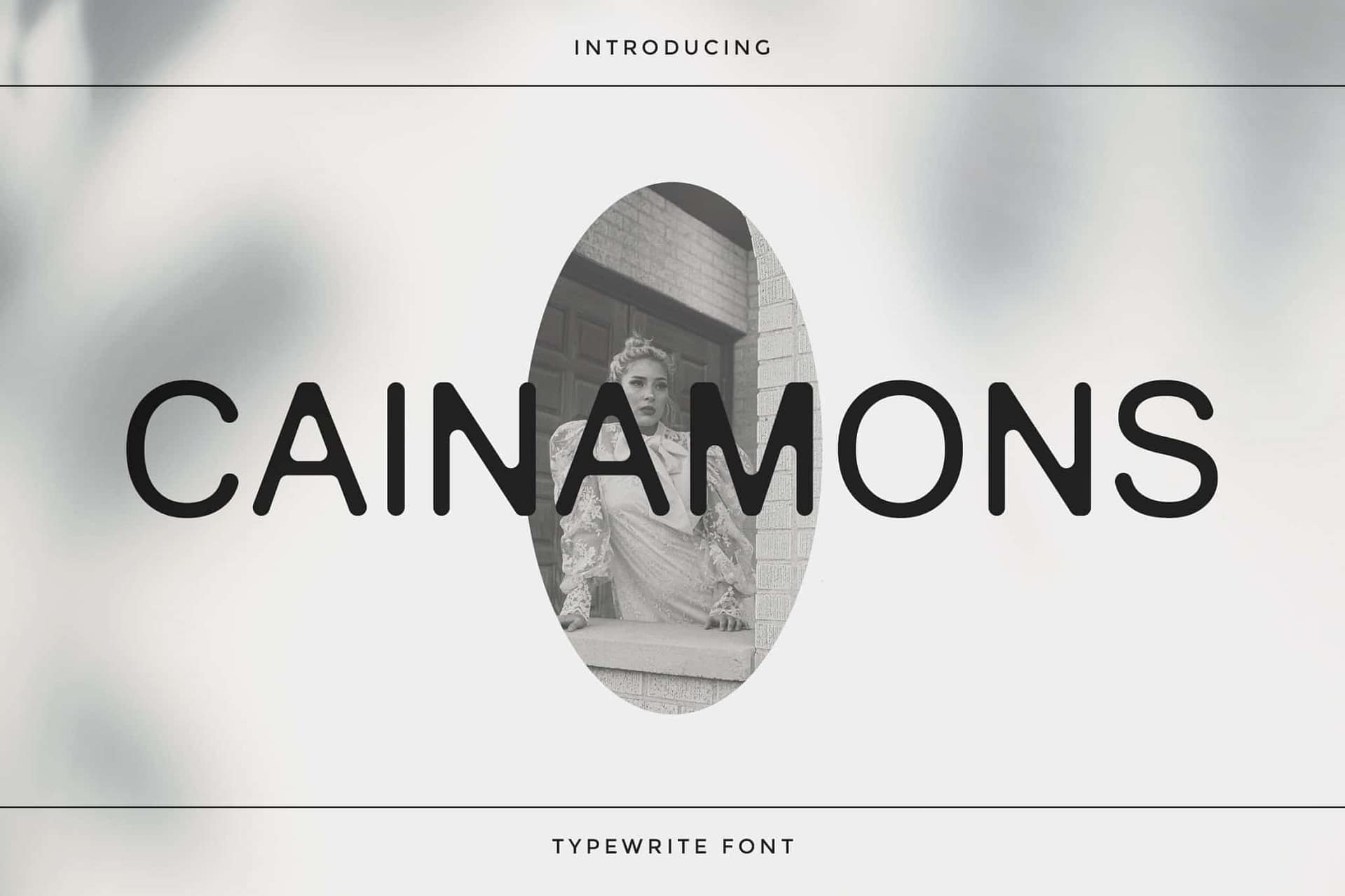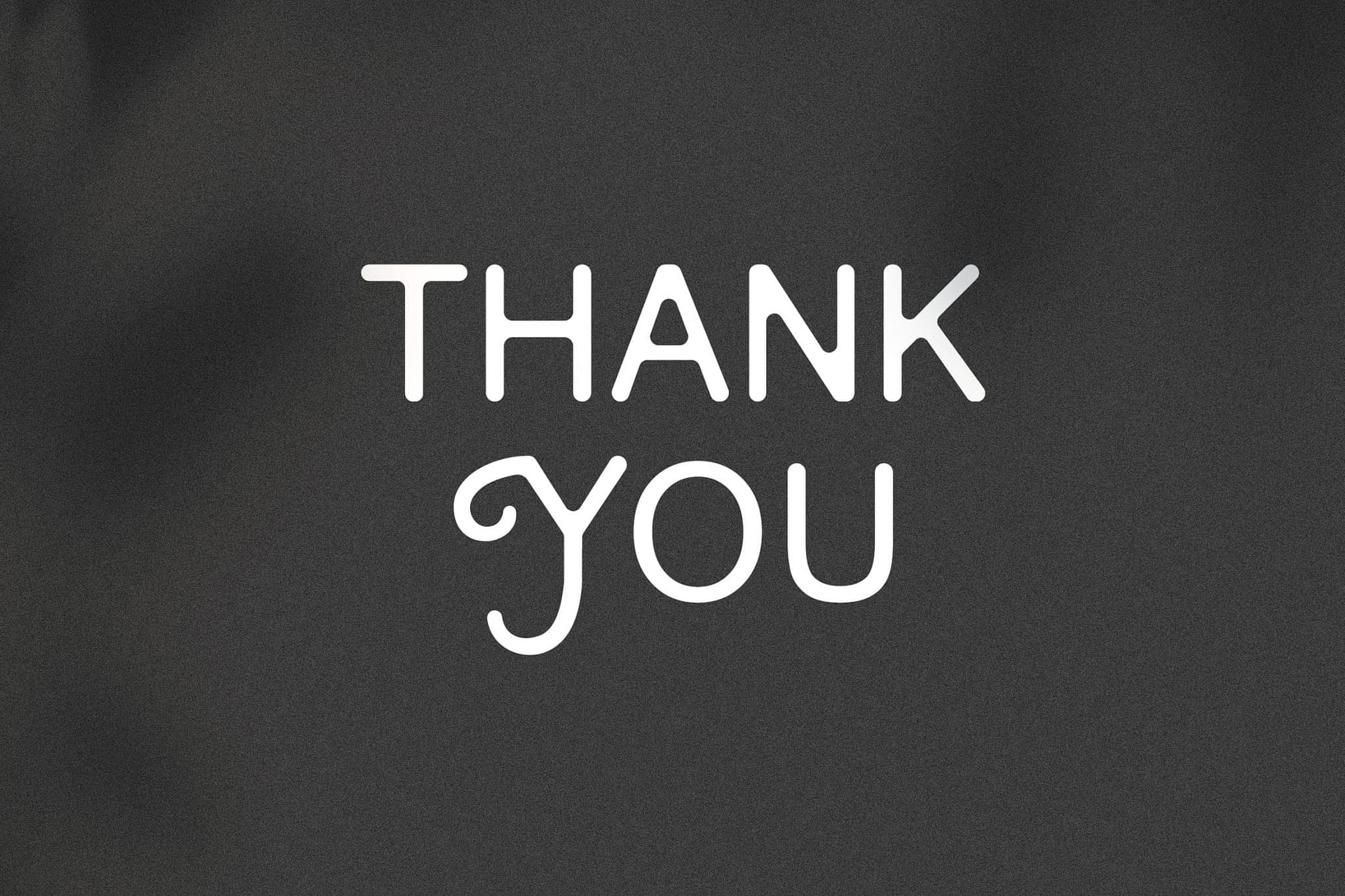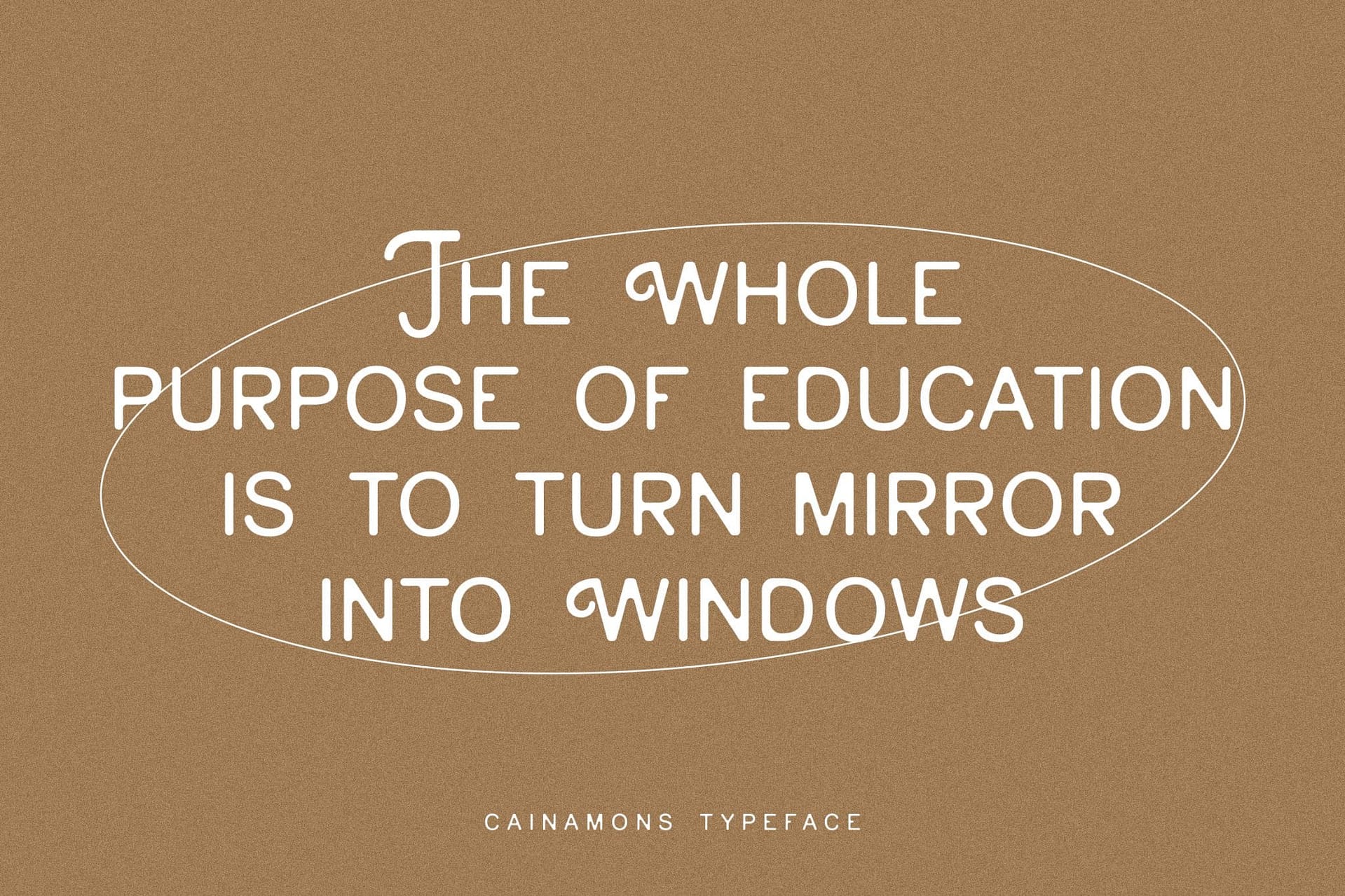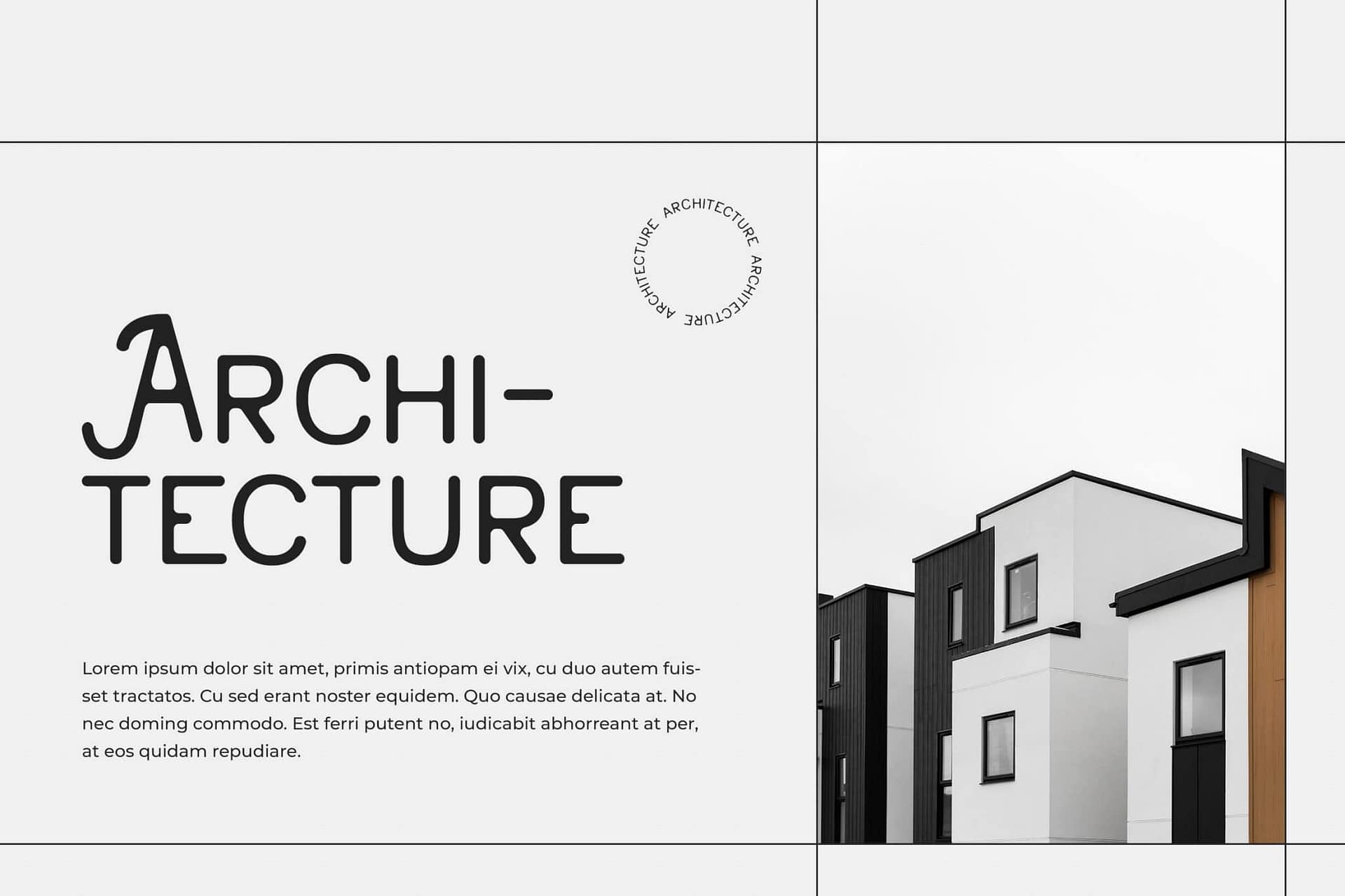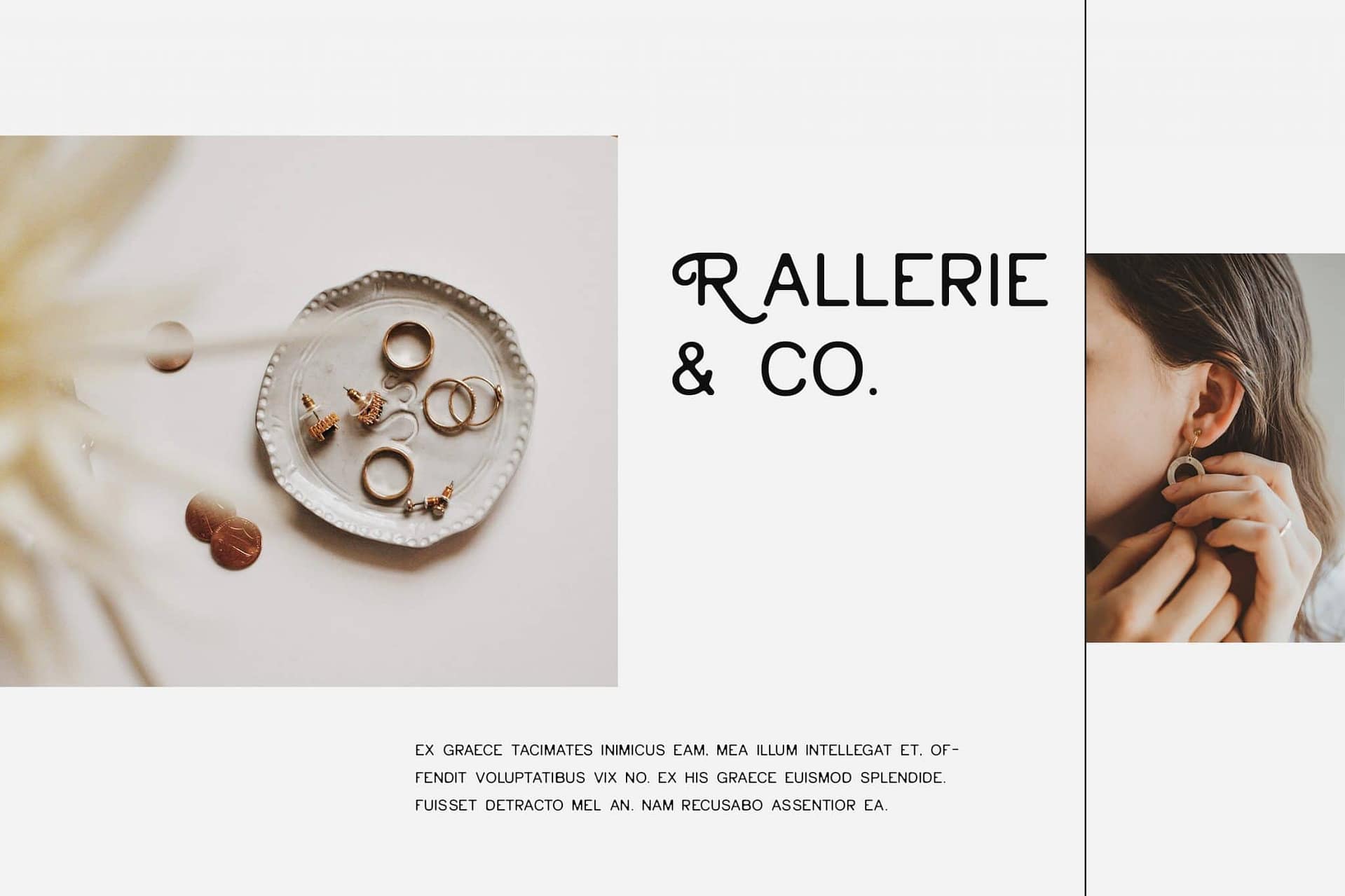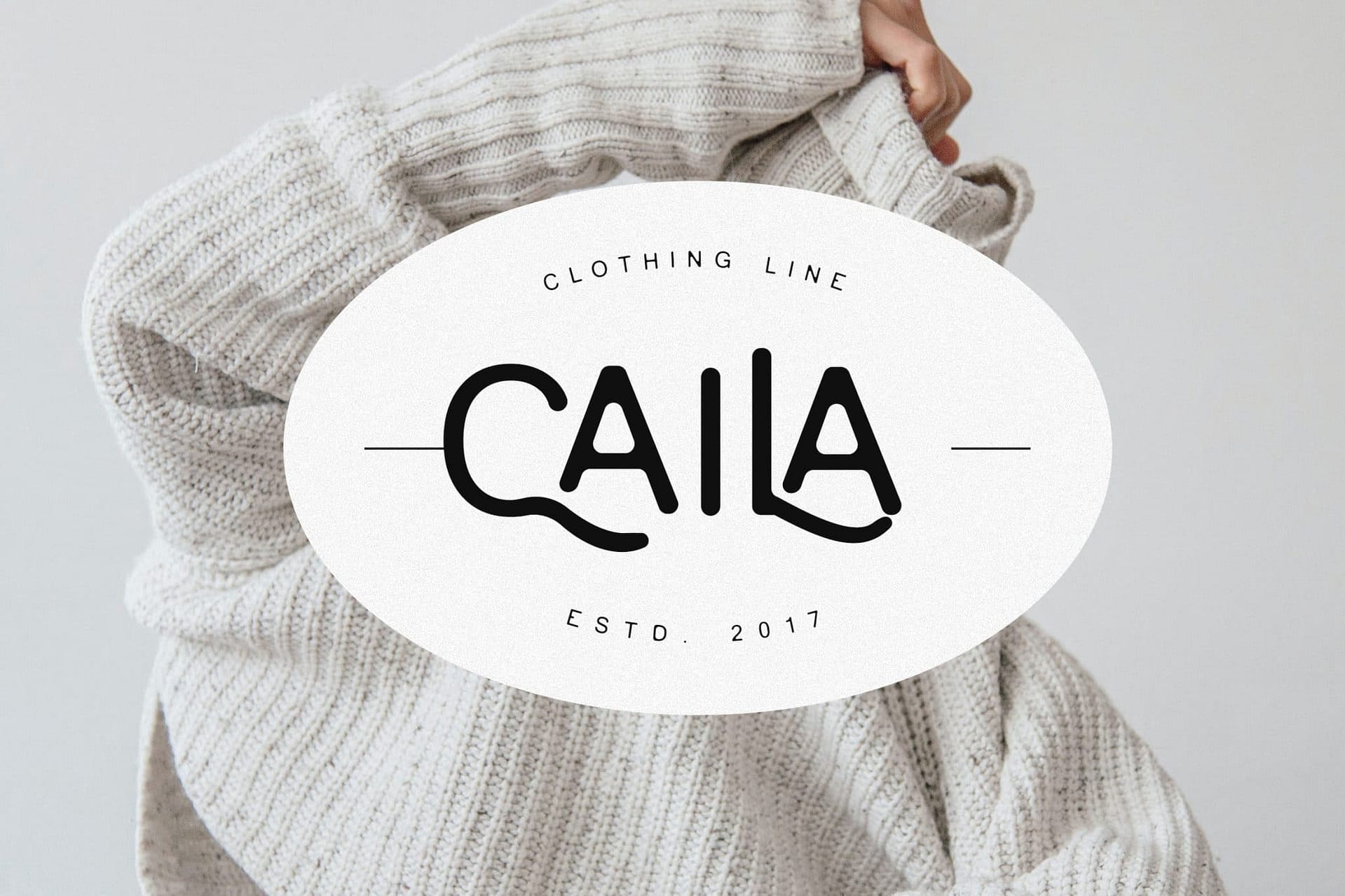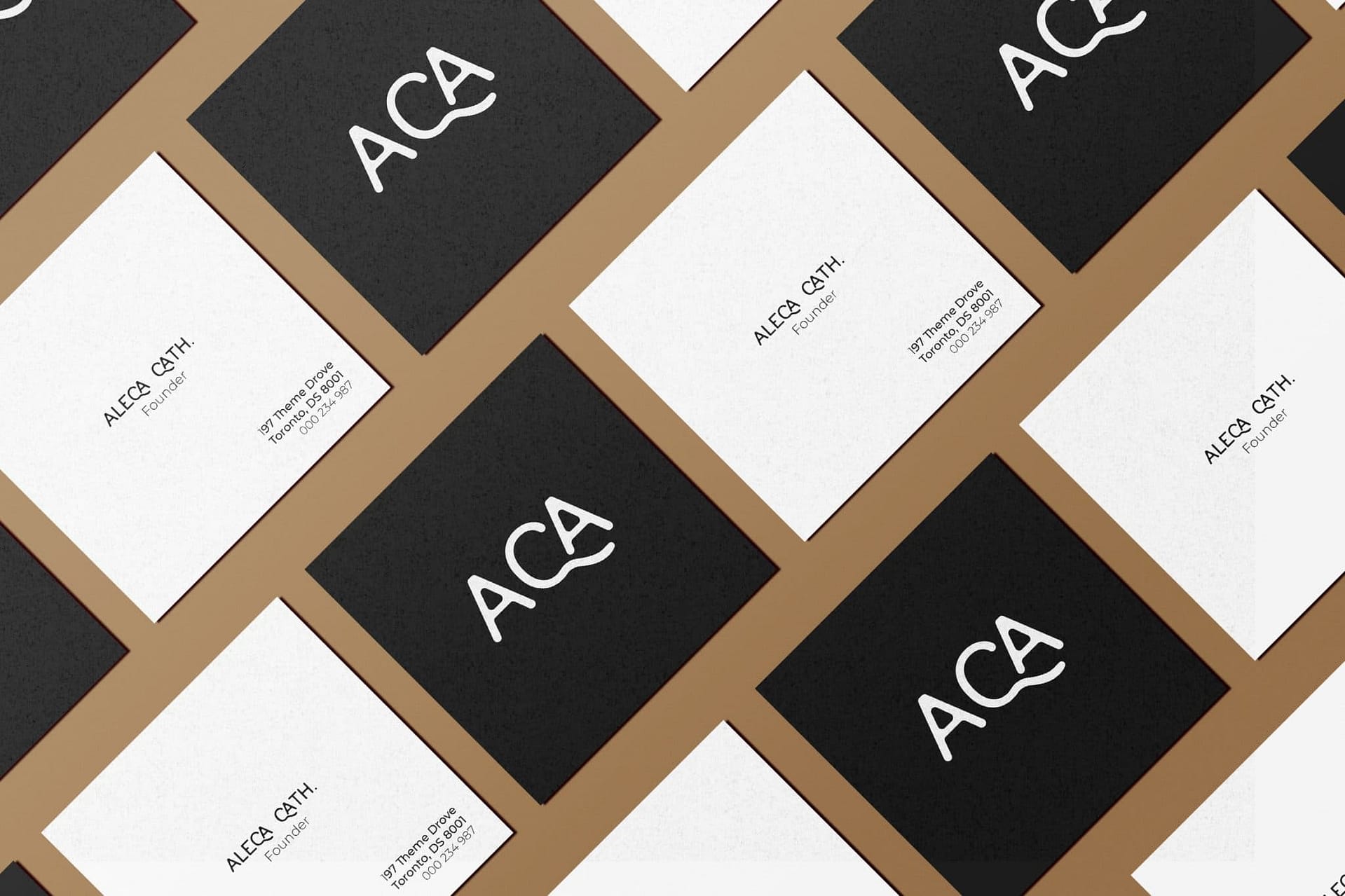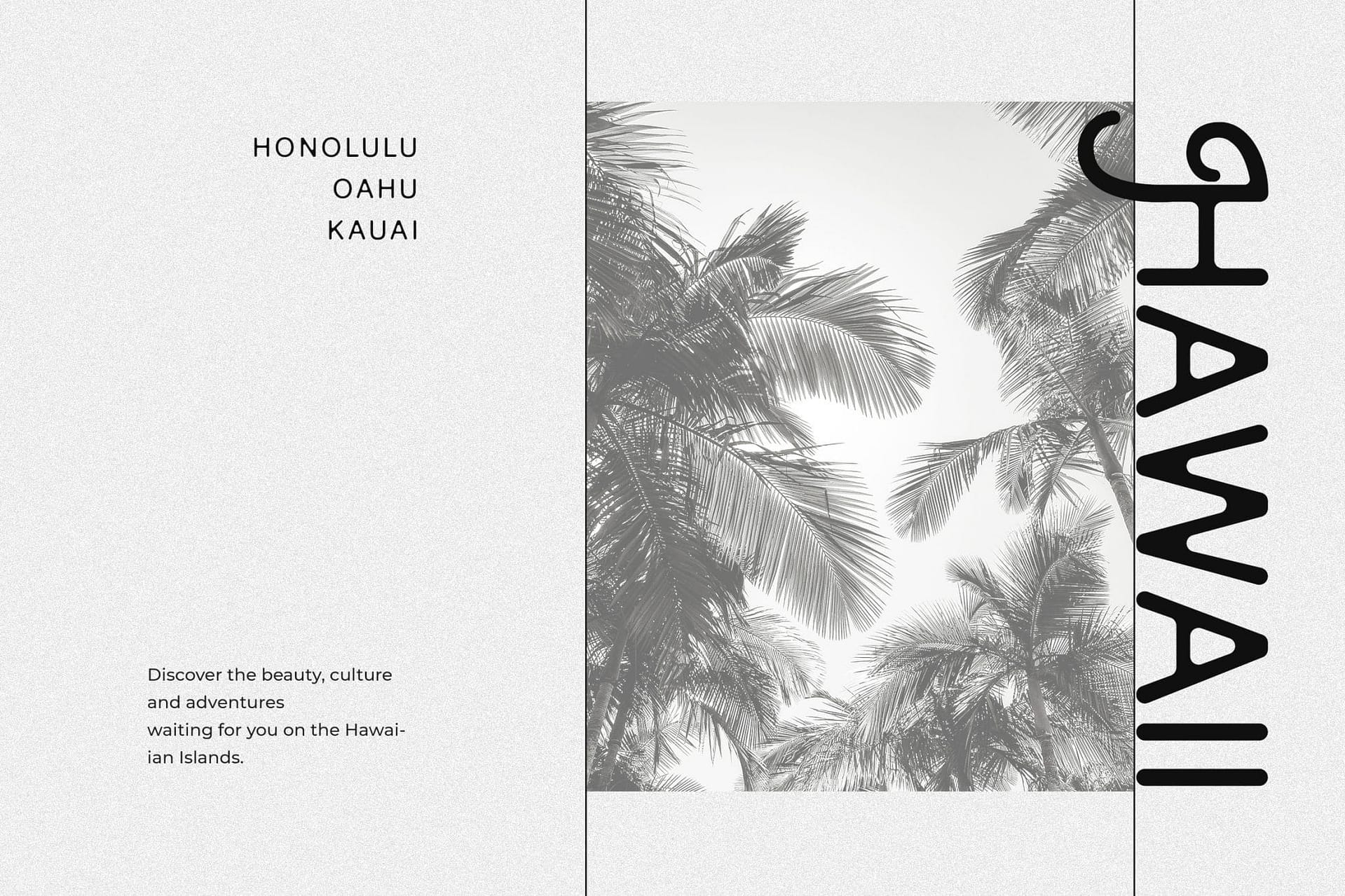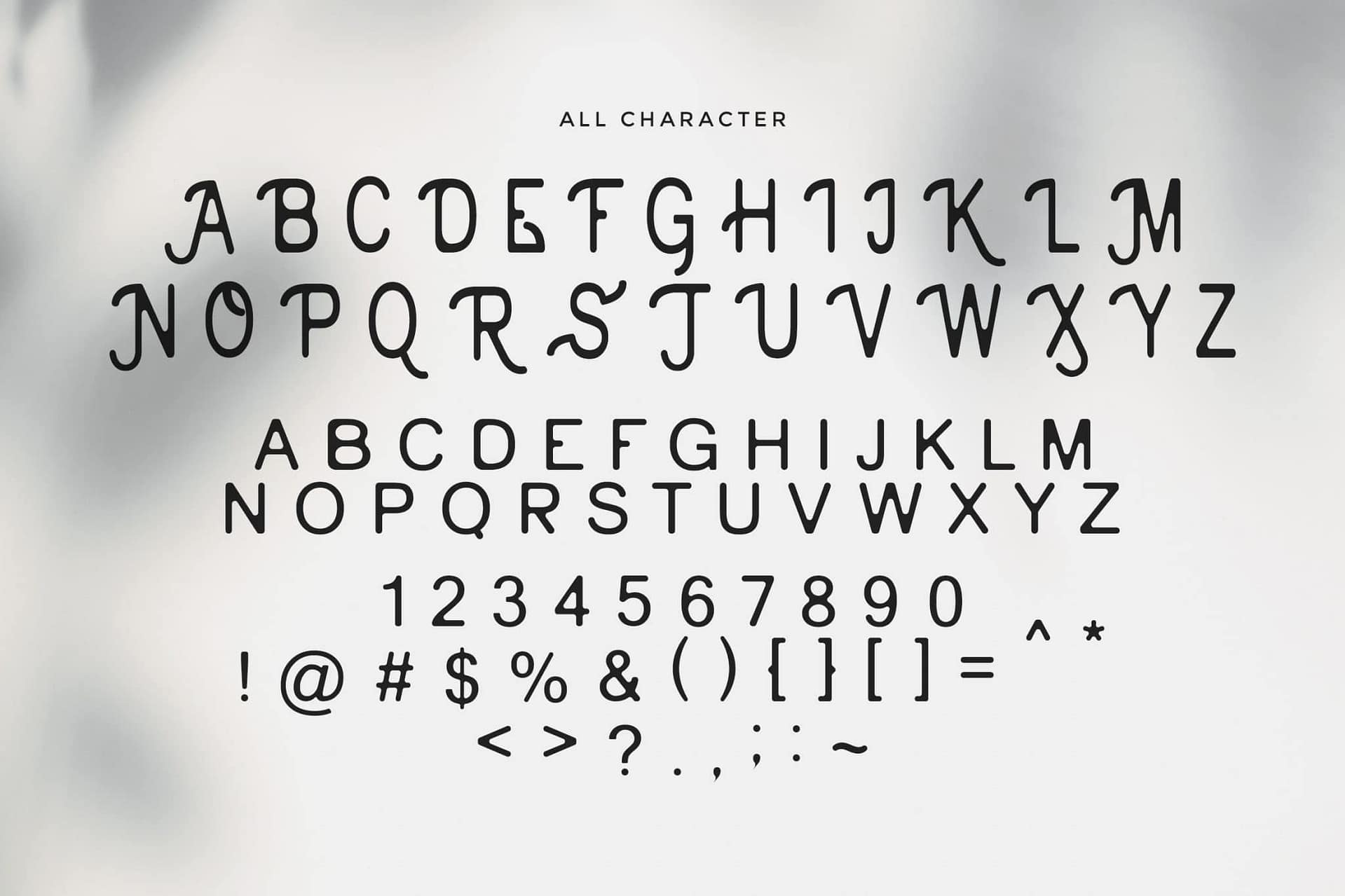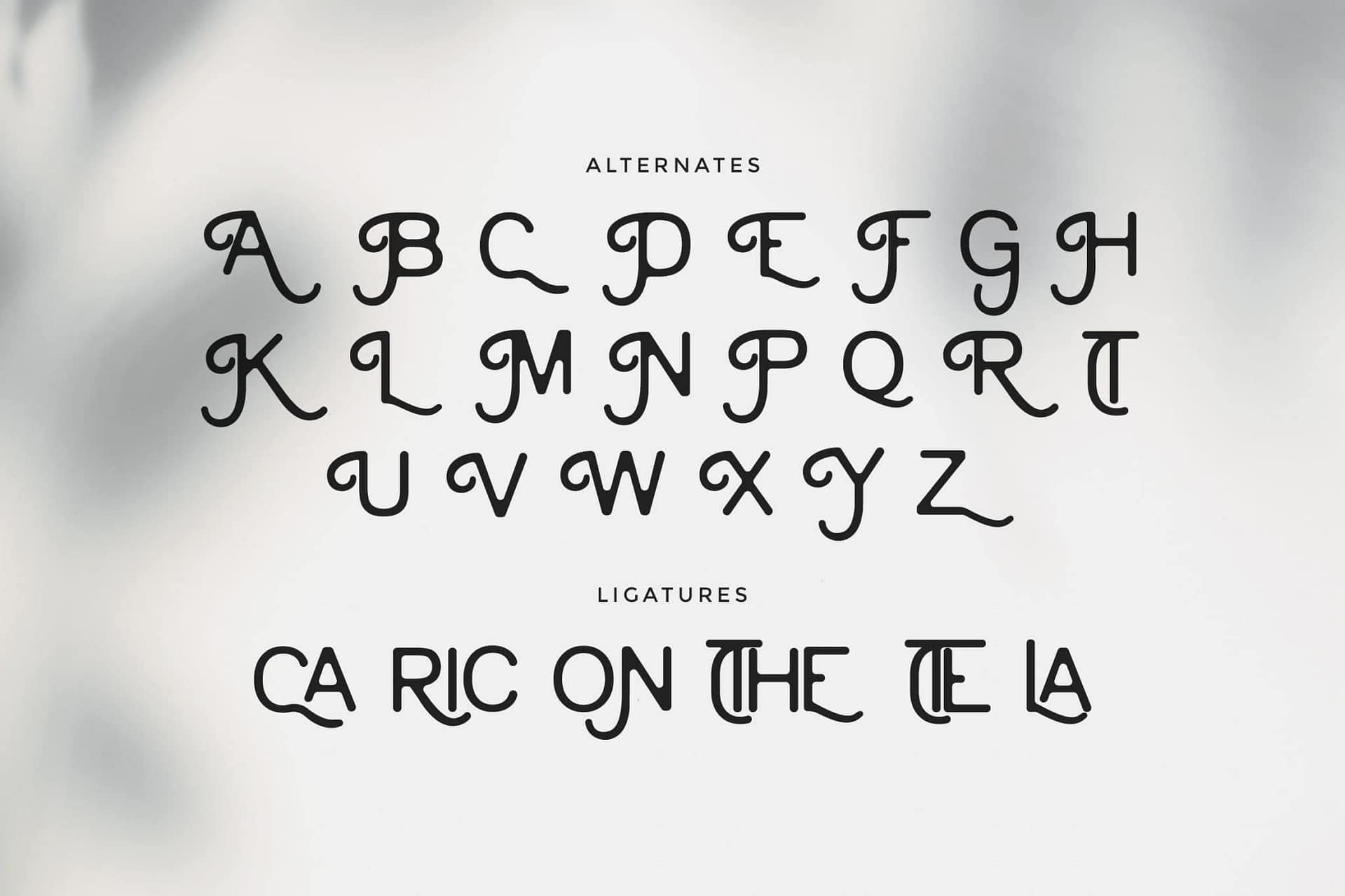
Cainamons is a beautifully crafted vintage typeface by Rometheme that exudes elegance and nostalgia. Perfectly designed for projects that require a classic and timeless touch, this typeface combines ornate details with smooth, legible typography. Here’s a detailed description of the product:
With Cainamons, your design projects will stand out, offering a unique blend of vintage charm and modern versatility. Perfect for elevating any creative work with a touch of history and artistry!